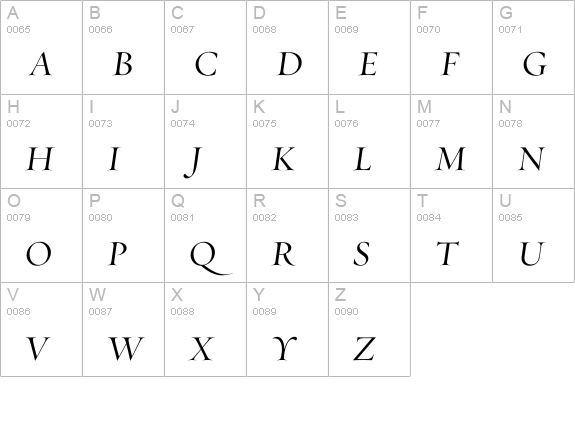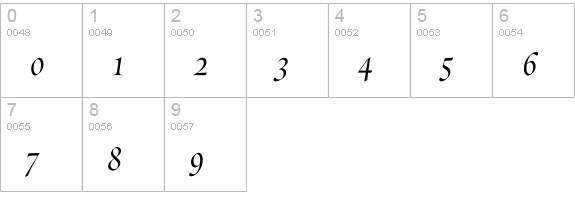
RequiemFine-HTF-Italic Font Details
RequiemFine-HTF-Italic is a distinctive, italic variant in the RequiemFine typeface family \xE2\x80\x94 well suited to design and typography projects.
Introducing RequiemFine-HTF-Italic, a stunning typeface that exudes elegance and sophistication. This font is the perfect choice for those seeking a touch of luxury in their designs. Its delicate curves and stylish slant create a sense of grace and refinement, making it ideal for high-end branding, editorial layouts, and wedding invitations. RequiemFine-HTF-Italic offers a harmonious blend of classic and contemporary design elements, resulting in a truly timeless typeface. Its sleek and slender letterforms convey a sense of fluidity and movement, while still maintaining legibility and readability. Whether used in headlines or body text, this font captivates the reader's attention and effortlessly communicates its message. One of the most remarkable features of RequiemFine-HTF-Italic is that it is available for free. Yes, you read that right! This exquisite font can be freely downloaded at FontsMarket.com, allowing designers and creatives from all walks of life to access its beauty and versatility without any financial constraints. With RequiemFine-HTF-Italic, your design projects will instantly elevate to a whole new level. Its refined aesthetics and refined details will make your work stand out from the crowd, leaving a lasting impression on any audience. Whether you're designing a logo for a luxury brand, creating an elegant magazine spread, or crafting an invitation to a prestigious event, this font will be your trusty companion, adding a touch of class and sophistication to every project. Download RequiemFine-HTF-Italic today at FontsMarket.com, and unleash your creativity with this exceptional typeface. Experience the freedom of using a high-quality font that not only enhances your designs but does so without costing you a penny. Elevate your design game with RequiemFine-HTF-Italic and create visually stunning works of art that leave a lasting impact.